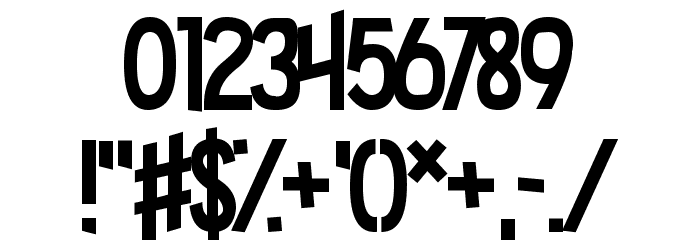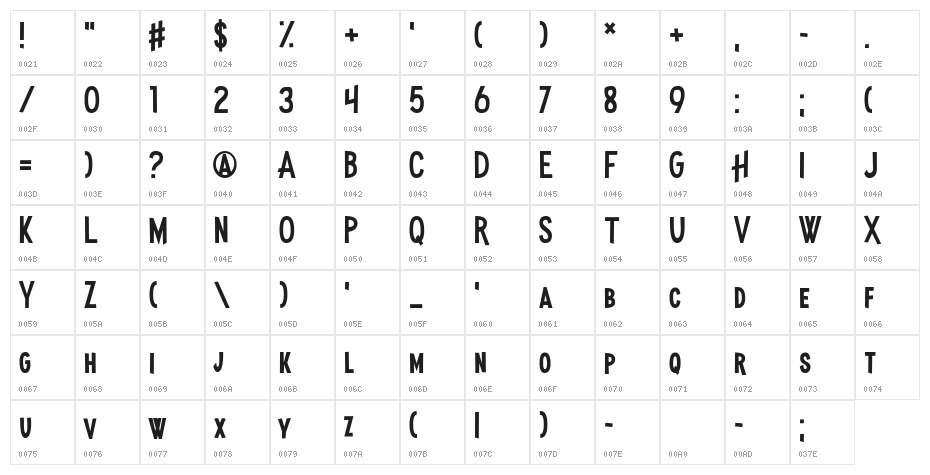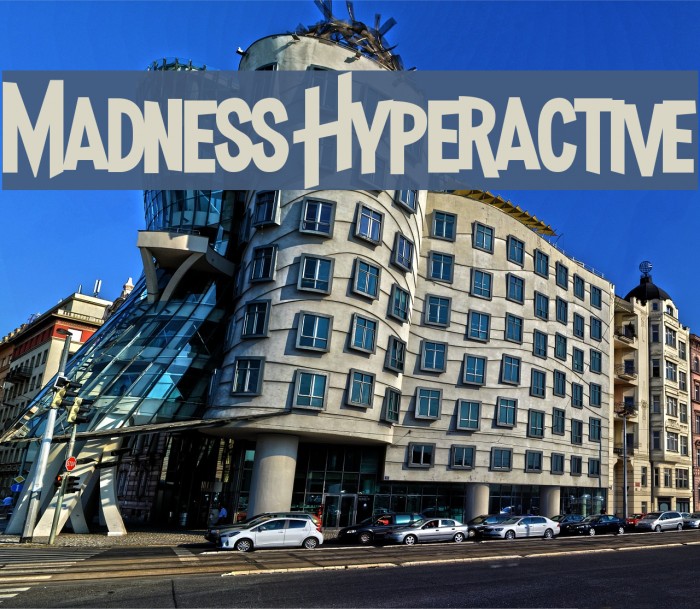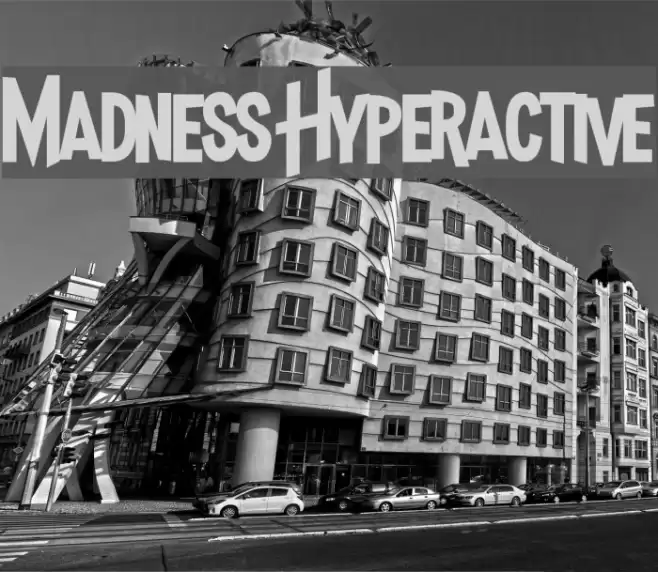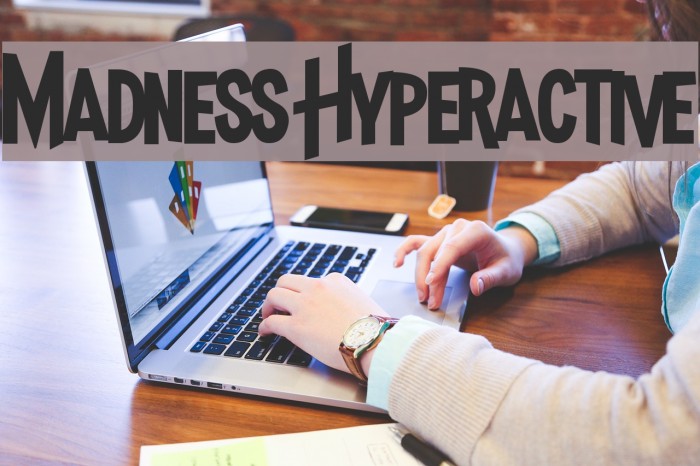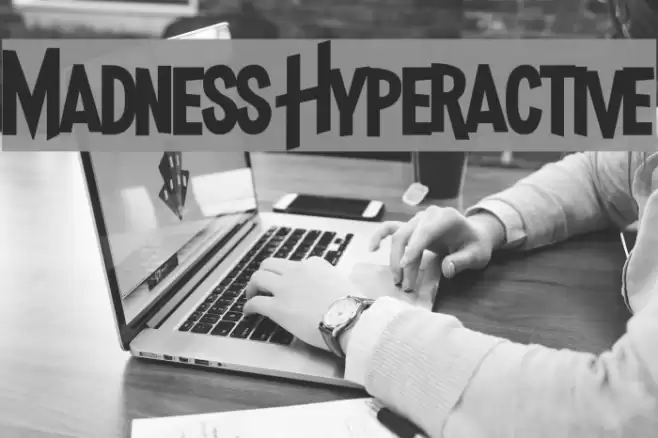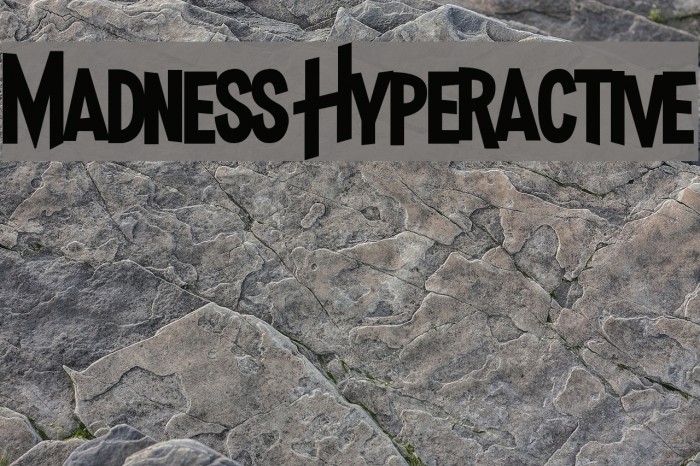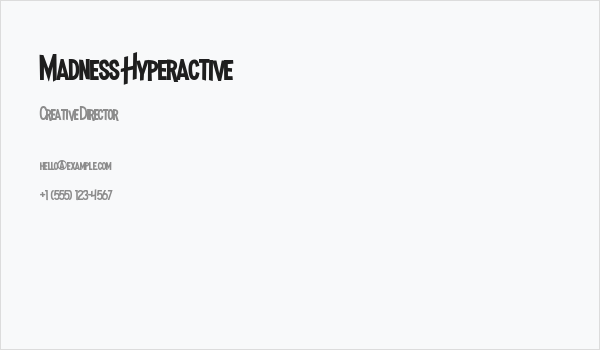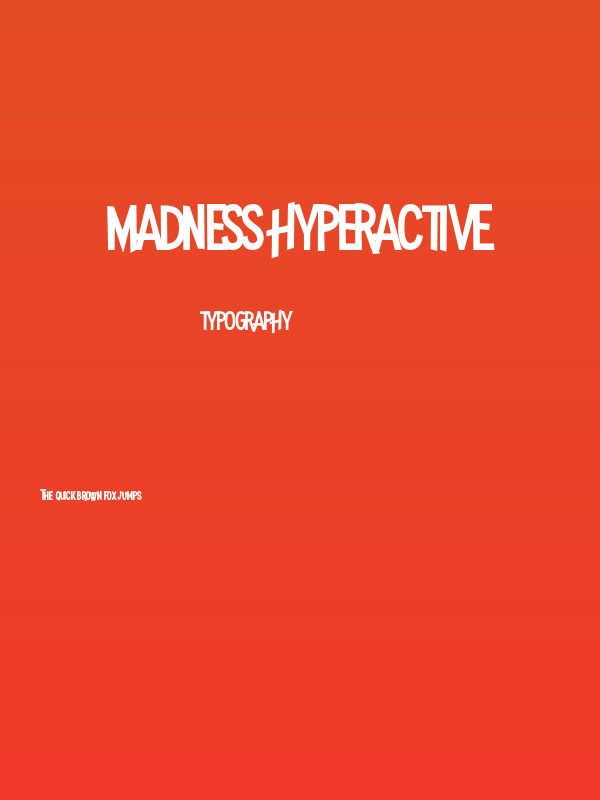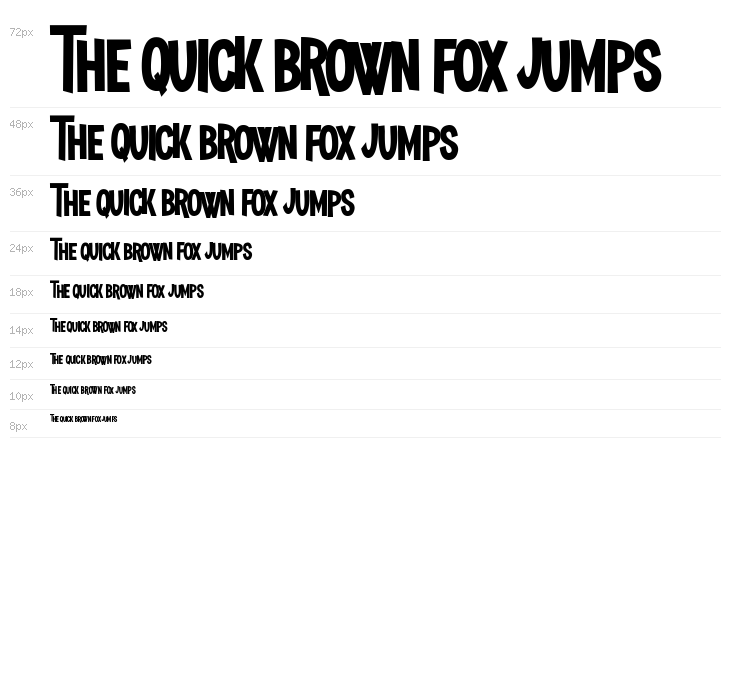
Madness Hyperactive Font
Madness Hyperactive Description
This font features a bold and dynamic style with exaggerated, angular shapes that convey a sense of energy and movement. The uppercase letters are particularly striking, with sharp edges and varying line thicknesses that create a sense of urgency. The lowercase letters maintain this energetic style, though they are slightly more restrained. Numbers and special characters are consistent with the overall design, ensuring a cohesive look. The font's unique characteristics make it stand out, making it ideal for projects that require a bold statement.
Proposed ProjectsIdeal for posters, album covers, branding materials, and any project that requires a bold, energetic statement.